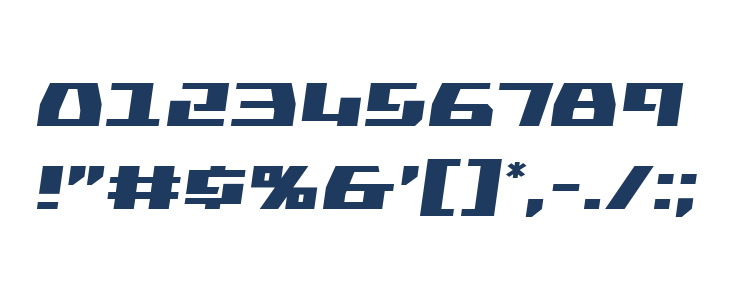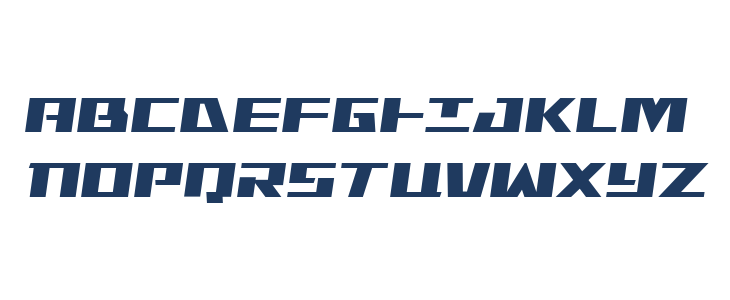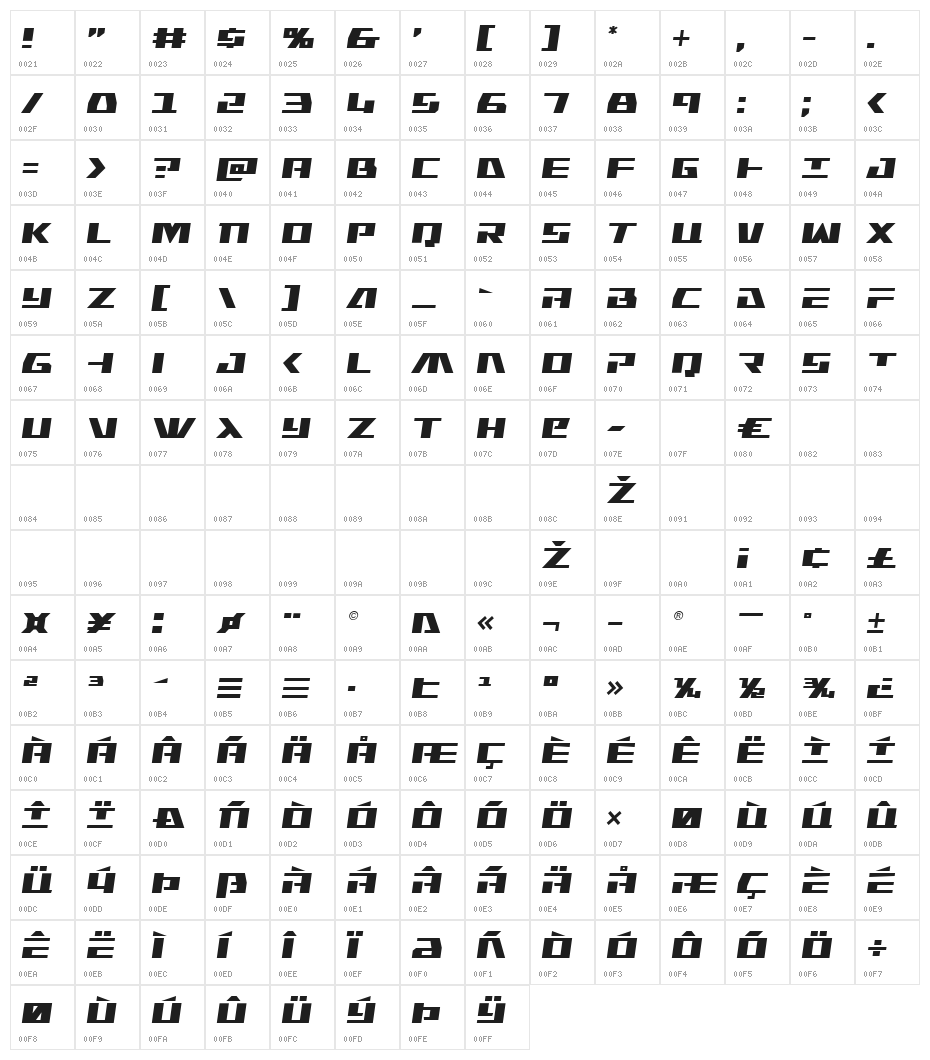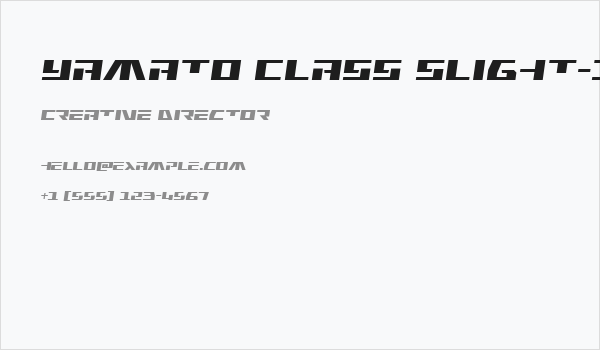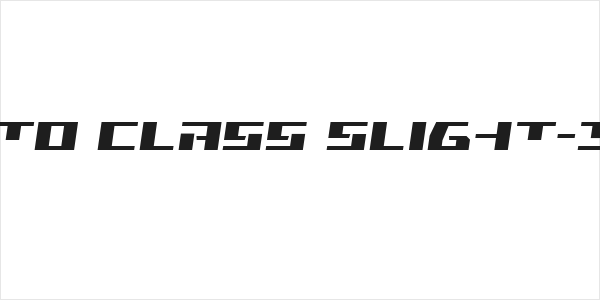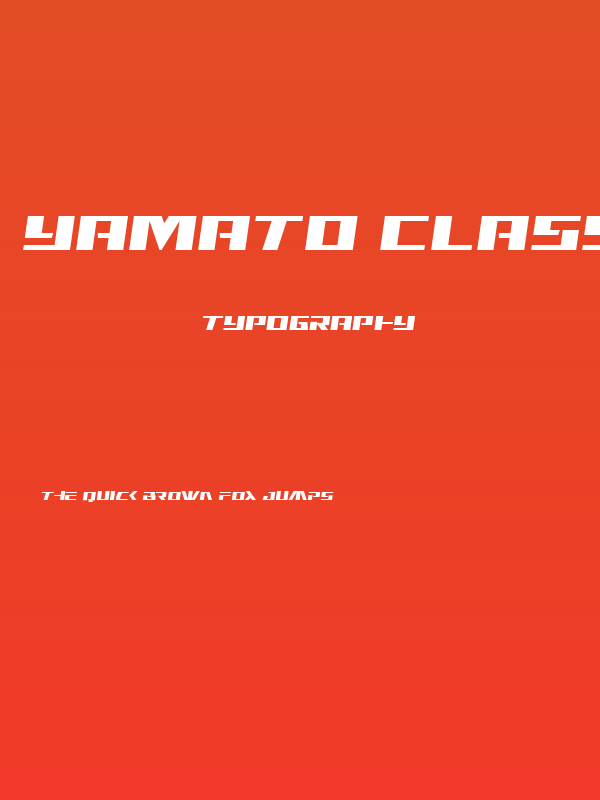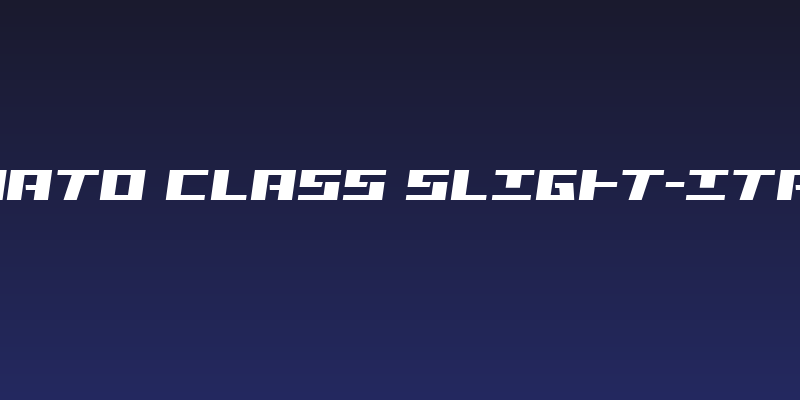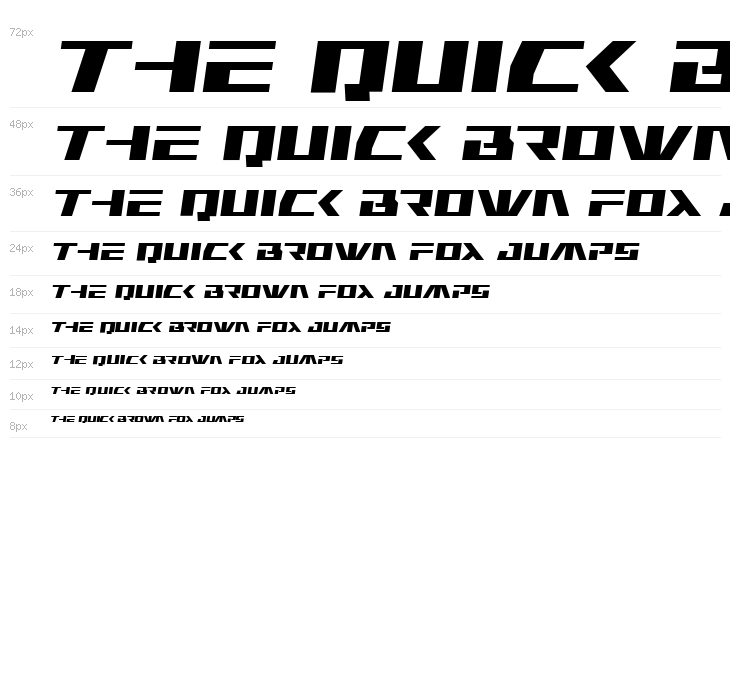
Yamato Class Slight-Italic Font
Yamato Class Slight-Italic Description
A geometric, angular typeface with a futuristic and mechanical appearance. The characters are bold, slightly italicized, and feature sharp edges and diagonal cuts, giving a sense of motion and strength. The font maintains consistent stroke thickness and spacing, with a uniform height across uppercase and lowercase letters.
| Overall Style | Futuristic, Mechanical, Decorative |
| Use Case | Headlines, Logos, Posters, Branding |
| Proposed Projects | Video game titles, sci-fi movie posters, technology branding, esports logos, event flyers. |